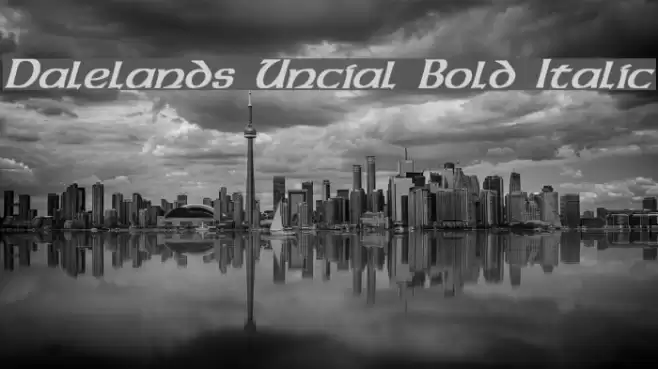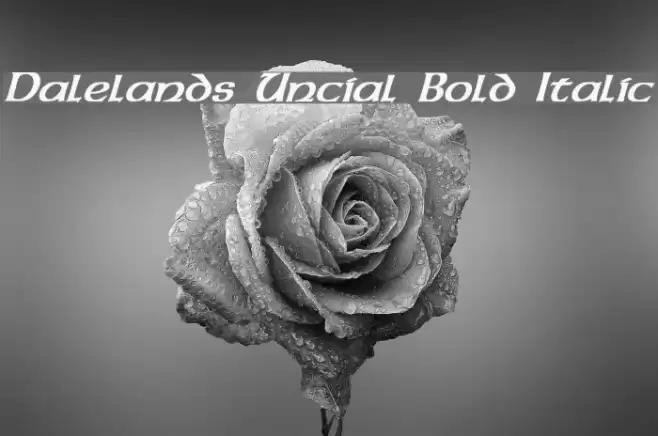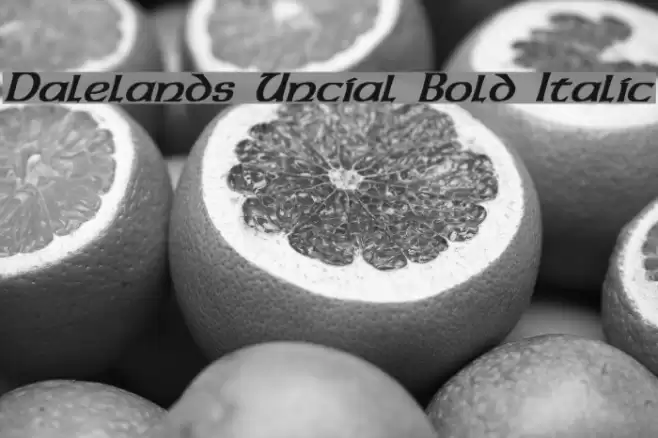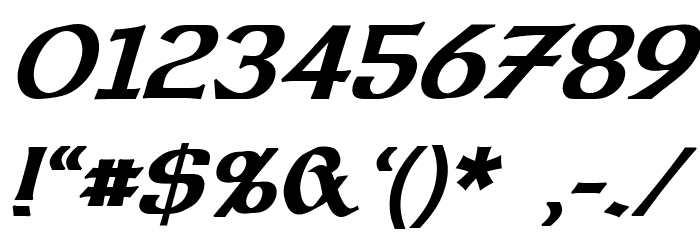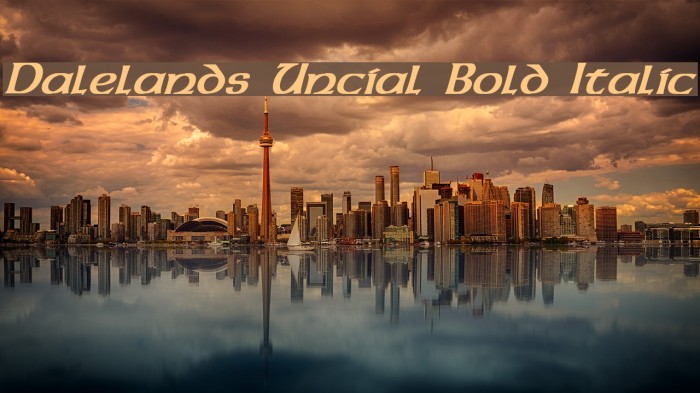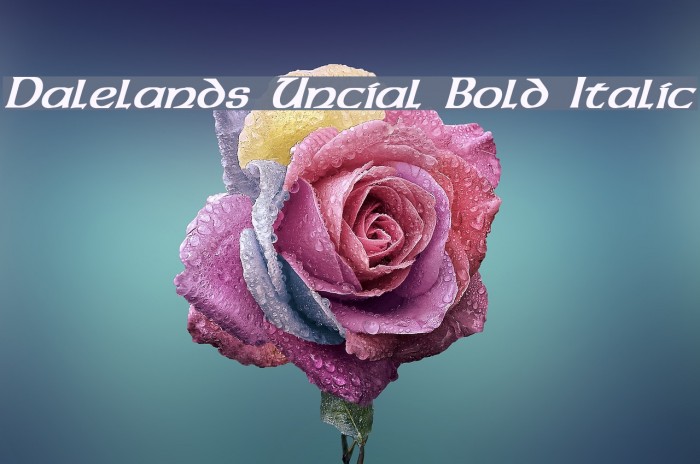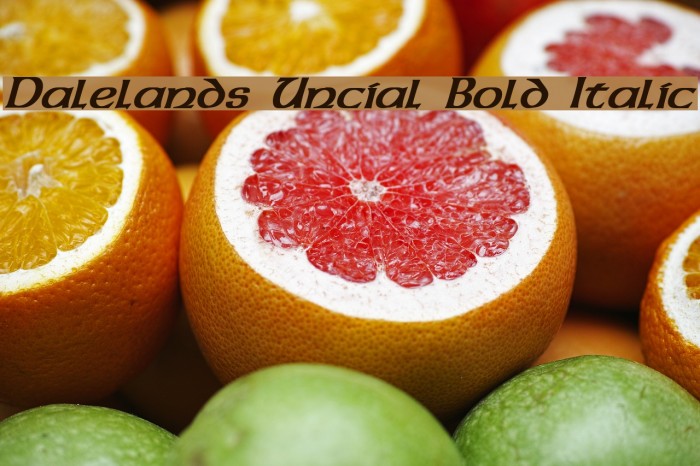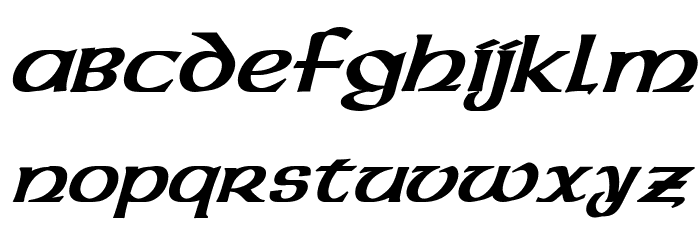
Dalelands Uncial Bold Italic Font
Dalelands Uncial Bold Italic Description
This font features a bold and italicized style with a distinct uncial influence, characterized by its medieval and calligraphic appearance. The uppercase letters are slightly condensed with sharp, angular serifs, while the lowercase letters maintain a consistent flow with rounded forms. The numerals are uniquely styled, complementing the overall historical aesthetic. Special characters are designed to match the bold and italic nature, providing a cohesive look across all glyphs. The font's boldness and italic slant give it a dynamic and expressive feel, making it suitable for projects that require a touch of historical elegance.
A bold, italicized uncial-inspired font with a medieval and calligraphic style from Uncategorized fonts.
- Proposed Projects: Ideal for fantasy-themed projects, historical documents, book covers, and decorative headings.
- Overall Style: Vintage
- Use Case: Headlines, Logos, Decorative text